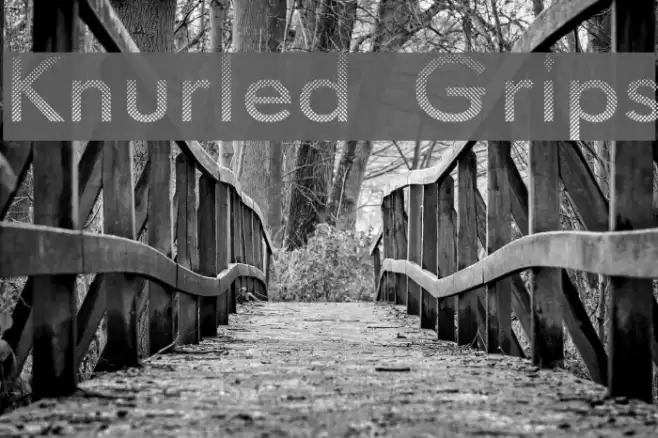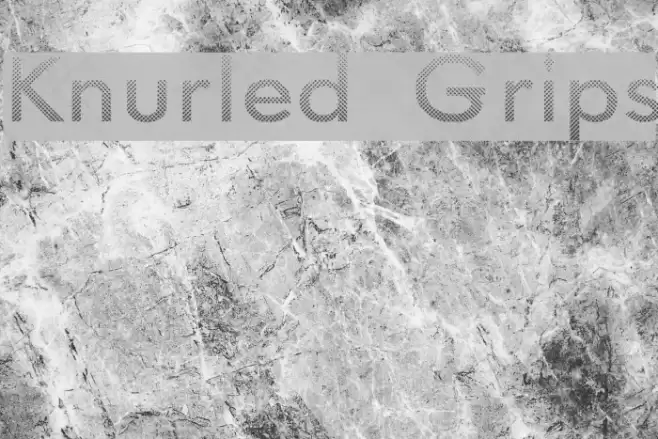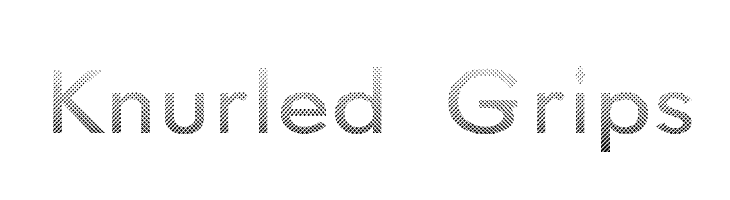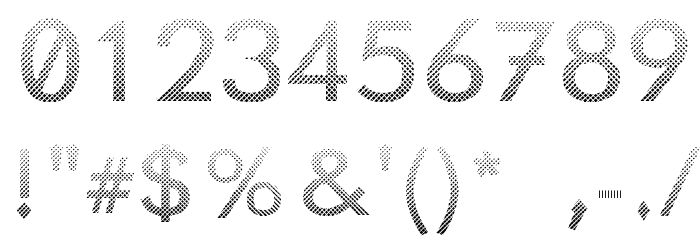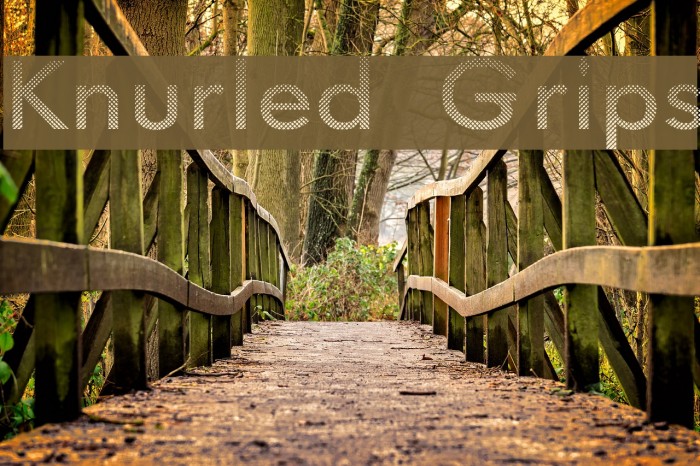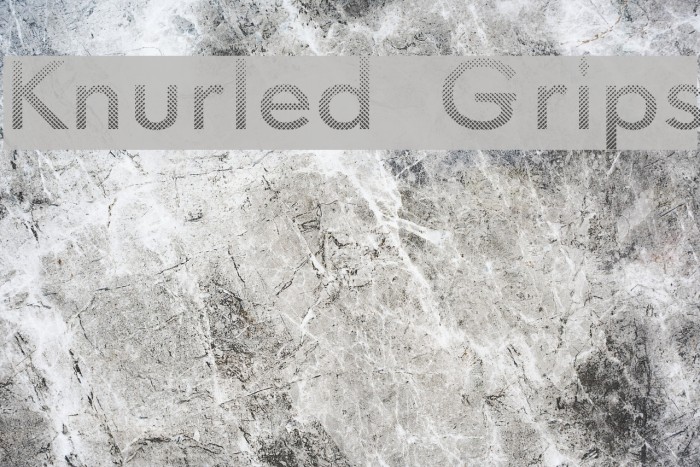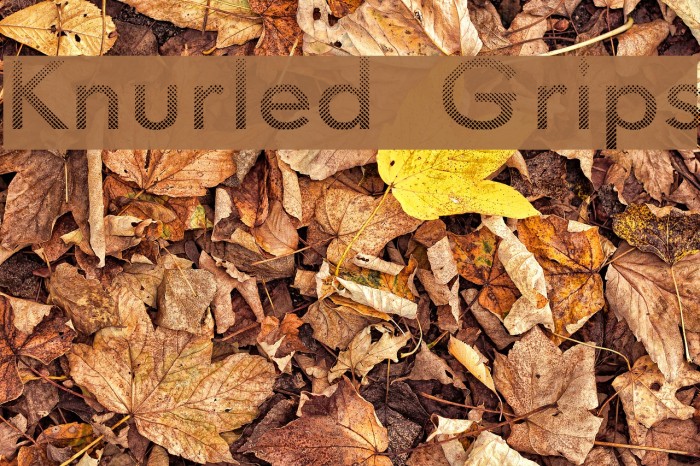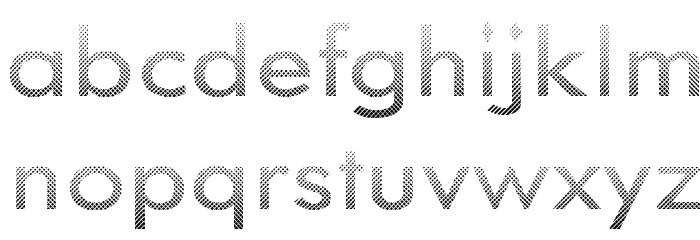
Knurled Grips Font
Knurled Grips Description
This font features a unique textured pattern reminiscent of knurled grips, giving it a distinct and tactile appearance. The characters are clean and geometric, with a modern sans-serif style that is both bold and eye-catching. The texture adds depth and interest, making it suitable for creative and innovative design projects. The uppercase and lowercase letters maintain a consistent style, while the numbers and special characters are equally well-crafted, ensuring versatility across various applications.
A modern sans-serif font with a unique knurled texture from Uncategorized fonts.
- Proposed Projects: Ideal for branding, packaging, posters, and digital media where a modern and textured look is desired.